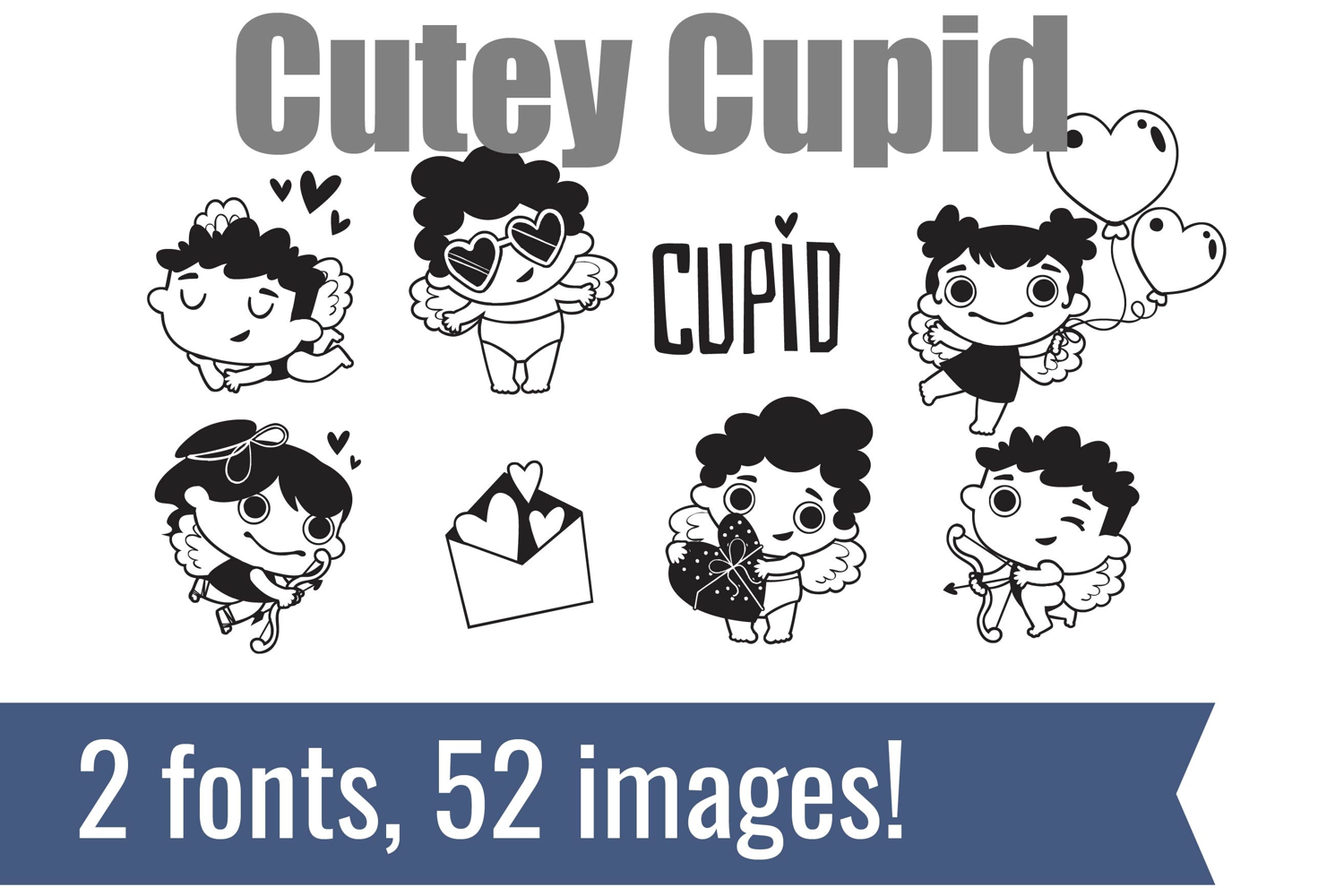
Cutey Cupid Dingbats
Unlock endless creativity with two perfectly coordinated fonts! There are two dingbat fonts in this bundle, featuring the cutest cupids and cupid animal friends.